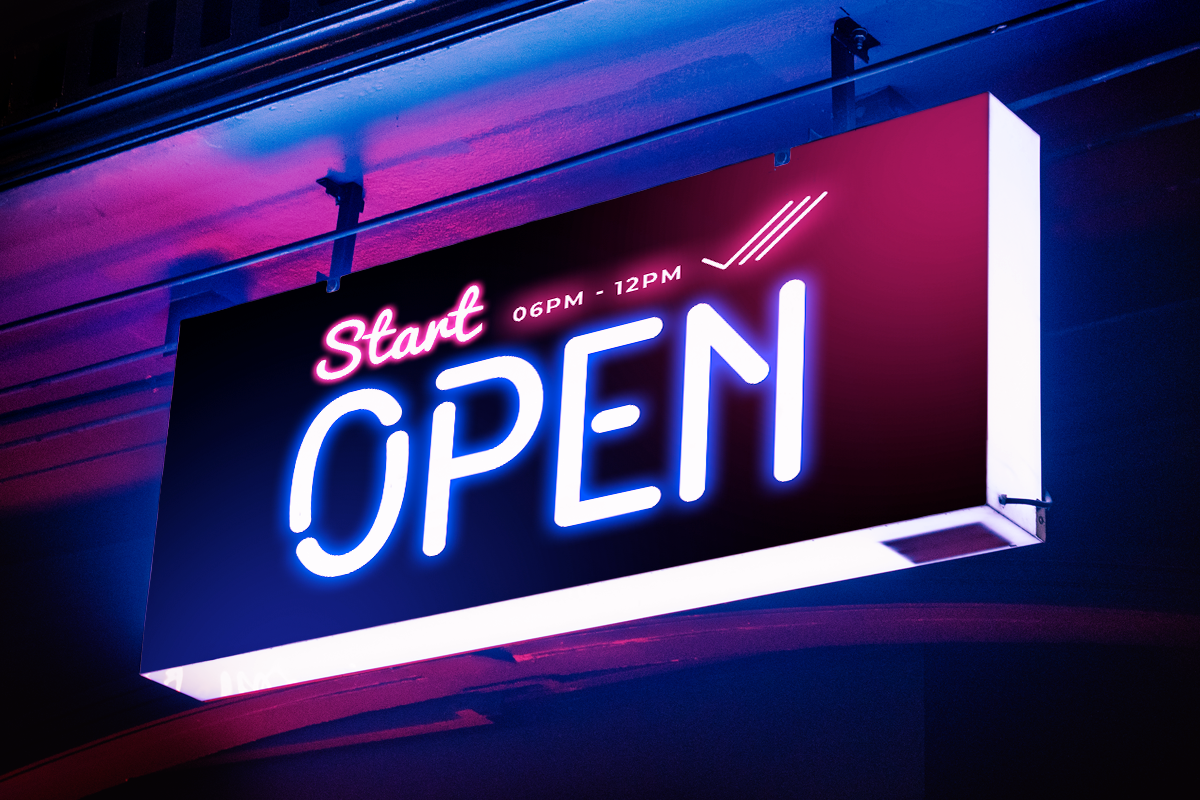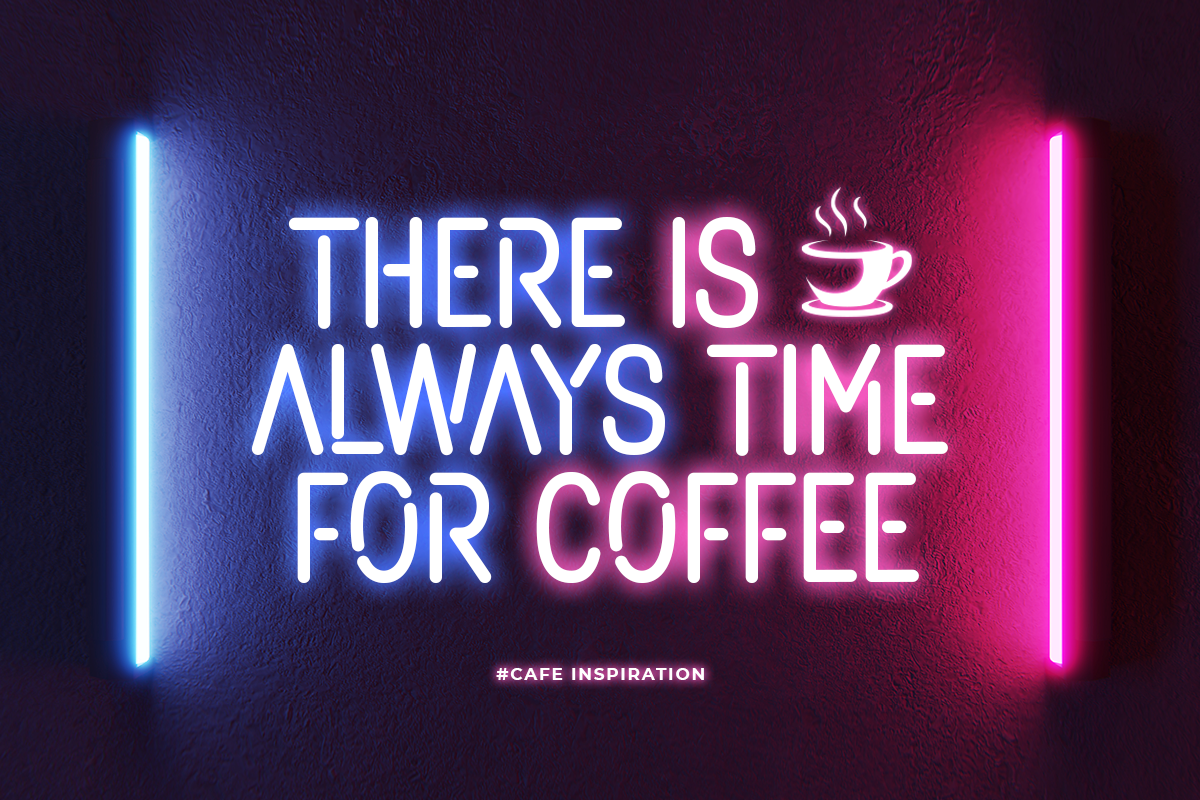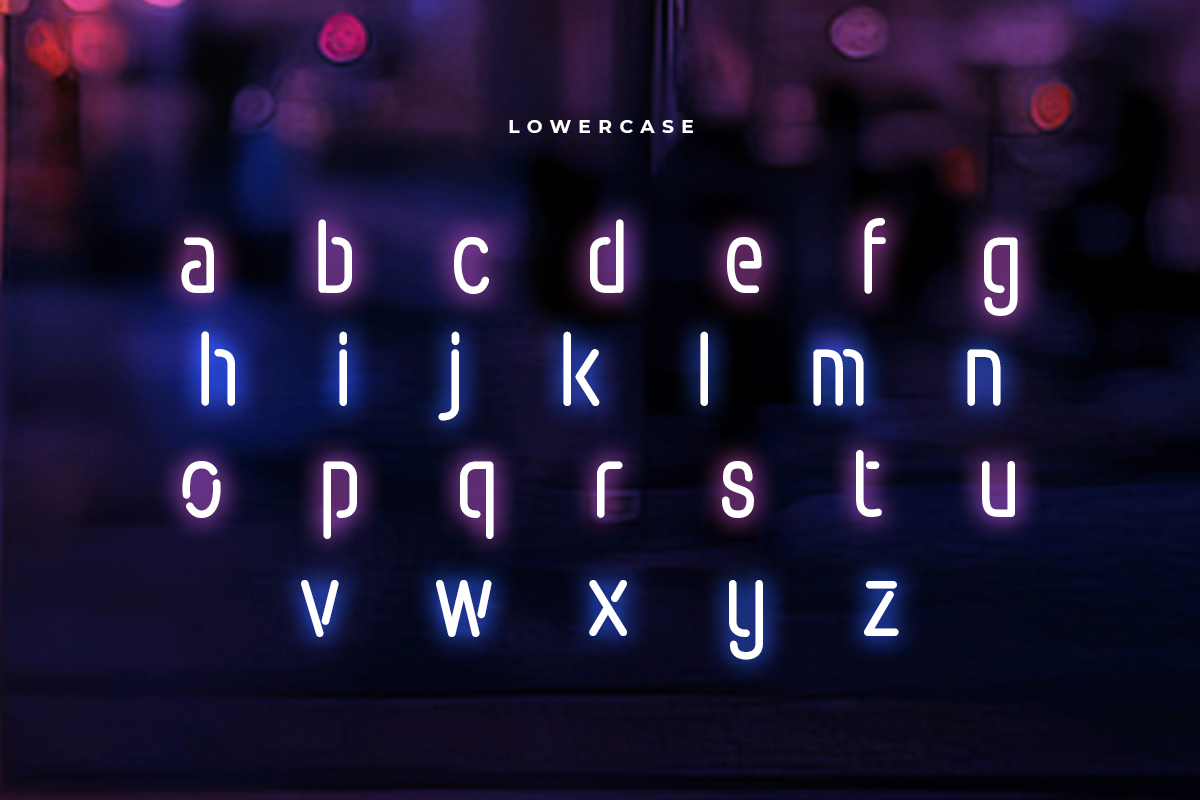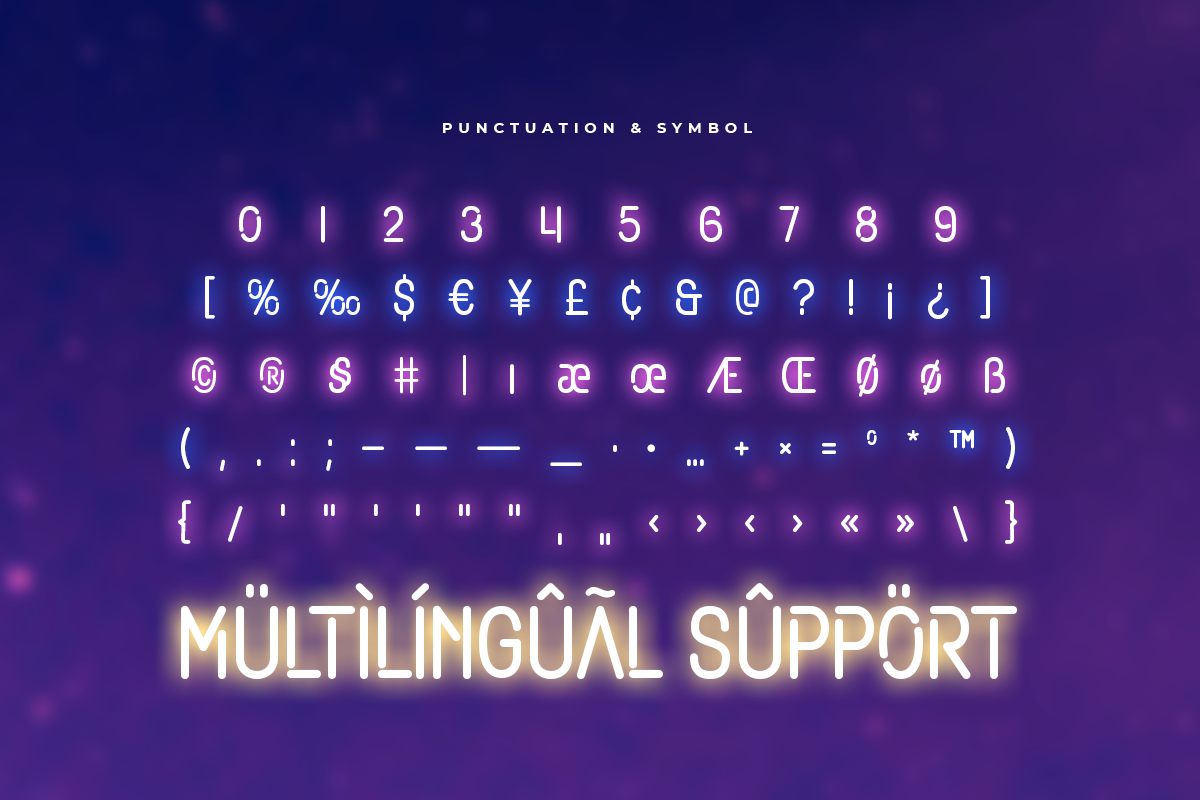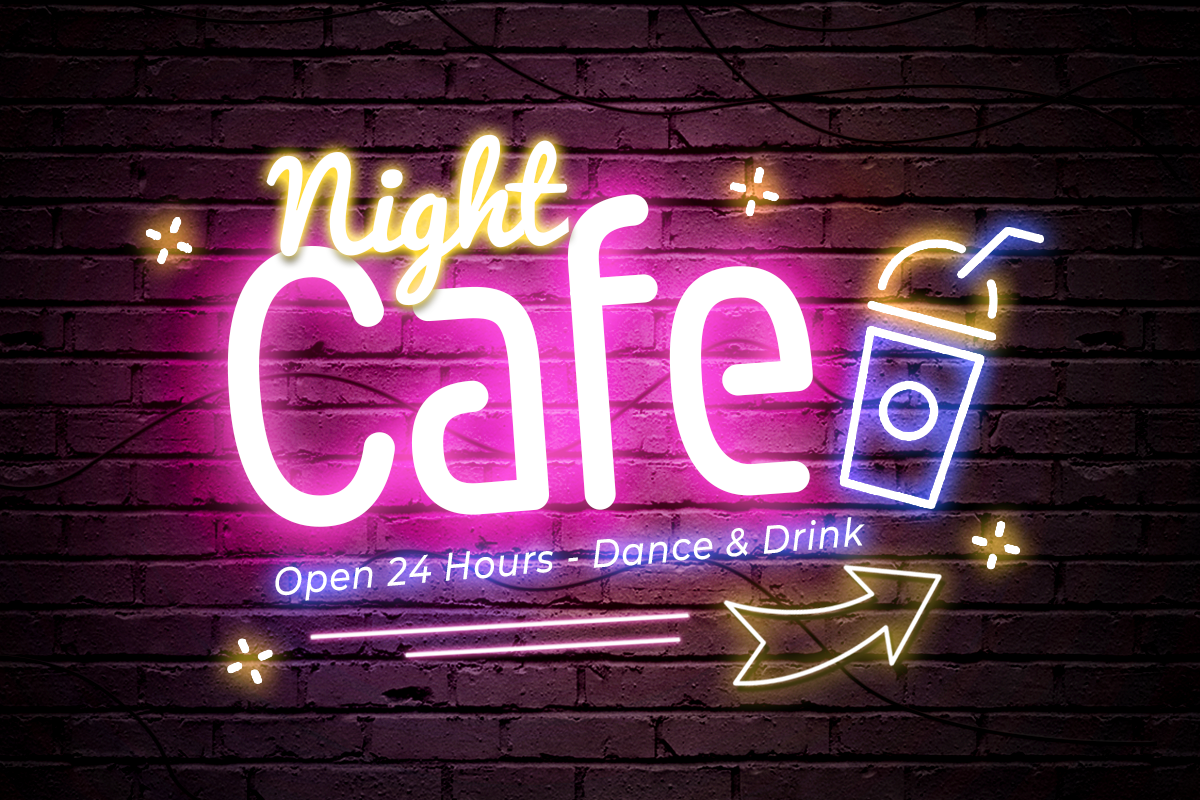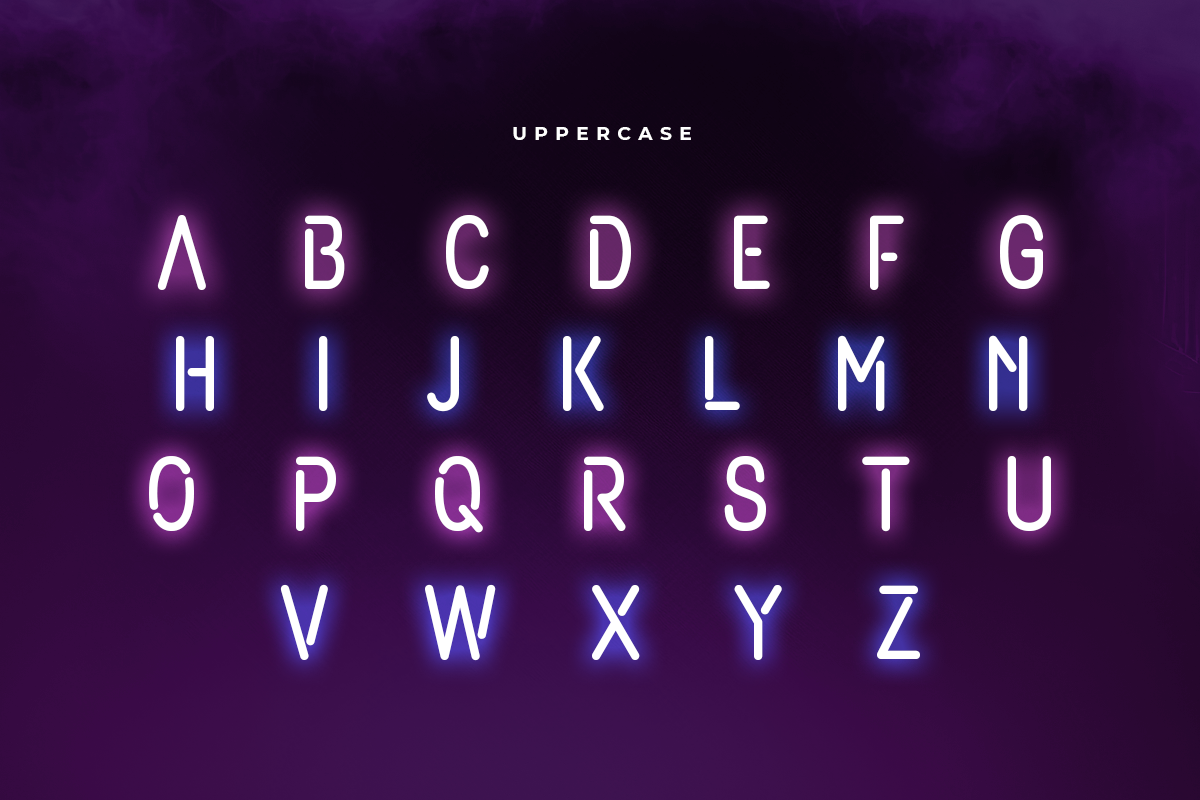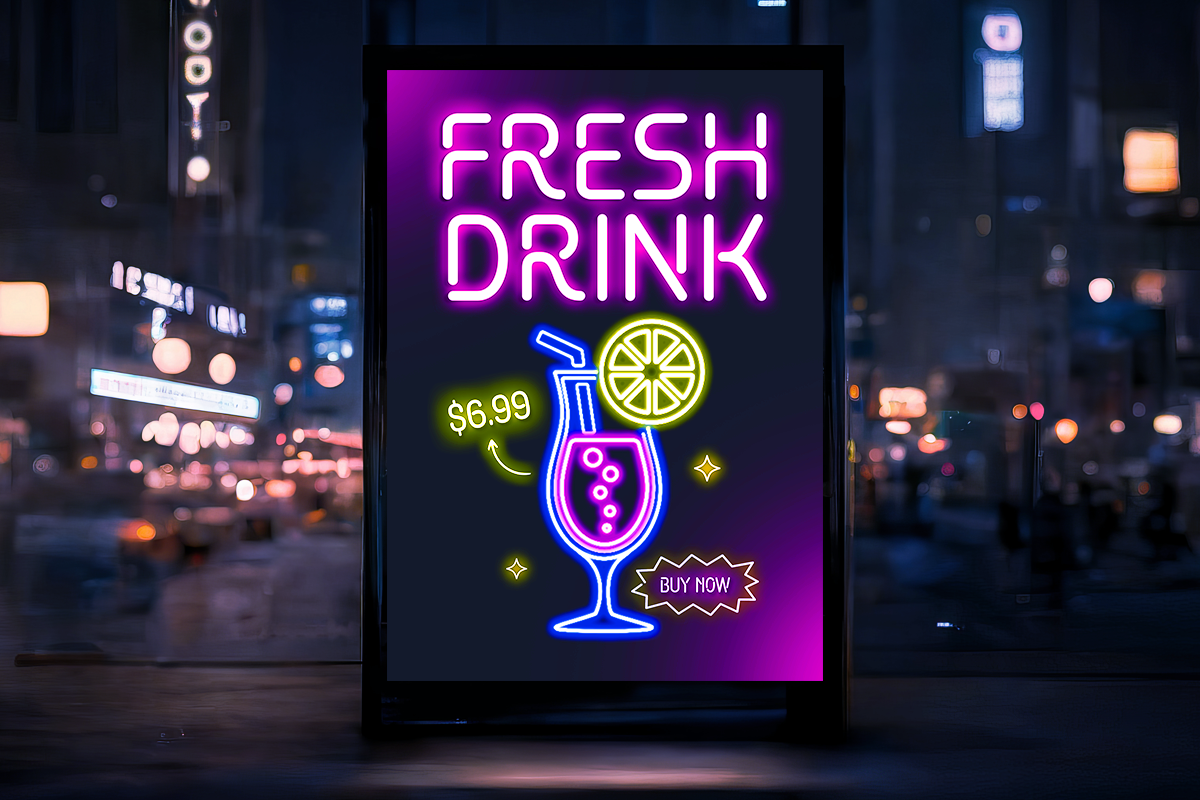
Beacon - Neon Light Party Font
Beacon is Neon Light Party Font with Modern shape make your design look unique and stylish
A new Display Font that we created special for Headline, Title and more stand out typography needs, with extra ligature that will add your variations. Itβs so perfect to add your style and headline overview. And specially for this font, we crafted for unique style and modern feels so enjoy to create any project that will show your main idea out.
Ready with Uppercase and Lowercase characters
Beacon - Neon Light Party Font by Hamz Studio fits naturally into Branding, posters, packaging, typography.